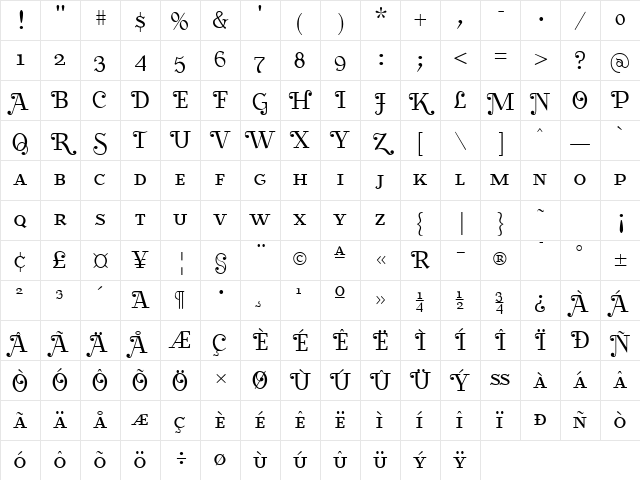
BearButteT Special
Design Context for BearButteT
BearButteT is a composed and adaptable typeface that performs quietly and consistently across a wide range of design contexts.
Pro Tip: Use BearButteT in both headline and body roles to test its range before committing to a single application.